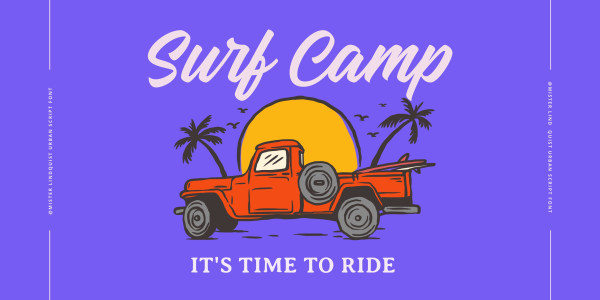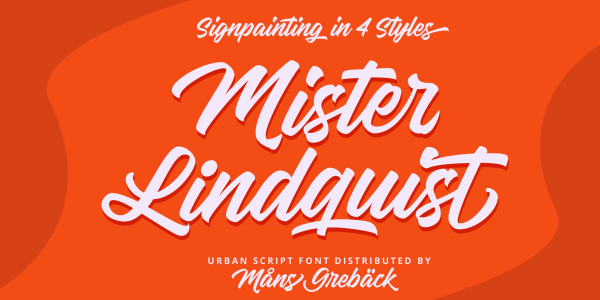
Mister Lindquist Font
Mister Lindquist Font is a calligraphic font that blends the artistry of vintage sign painting and the expressive movement found in bold signatures. This font captures the essence of an era of genuine craft.
Use underscore _ to make a underline.
Example: Scr_ipt
Use multiple underscores for longer swashes.
Example: Extr___eme